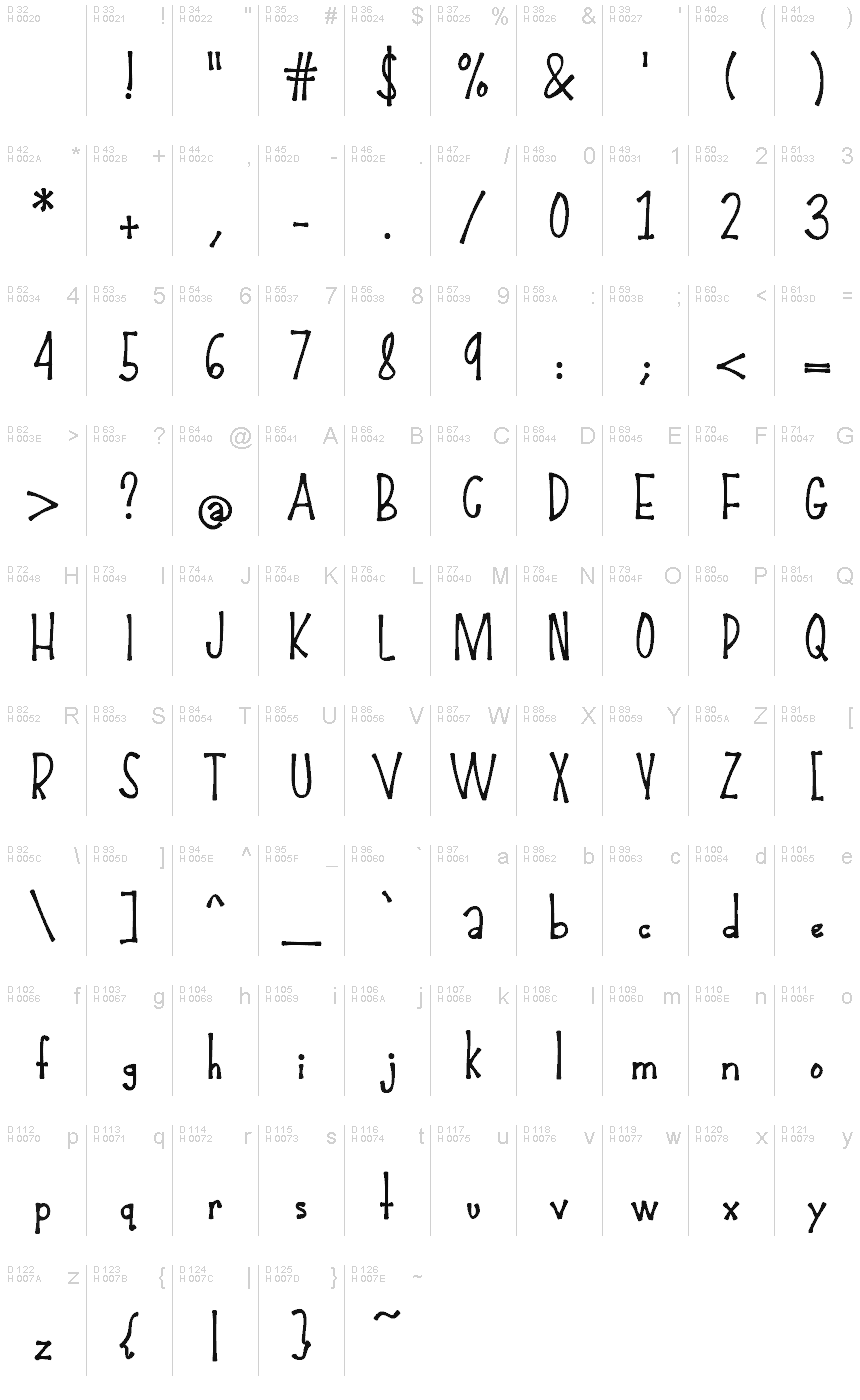
MixBamboo
Mix Bamboo is a captivating handwritten font crafted by Mix Fonts. With its condensed silhouette and fluid, organic strokes, this font exudes a delightful sense of movement and energy. The playful yet refined aesthetic evokes a charming, handcrafted ambiance, making it a versatile choice for various design projects.
The font's unique character shines through in its distinctive ligatures and subtle irregularities, which lend a genuine, handwritten feel to any composition. Whether used for branding, packaging, or editorial layouts, Mix Bamboo's expressive qualities can elevate the visual impact and convey a genuine, heartfelt tone.